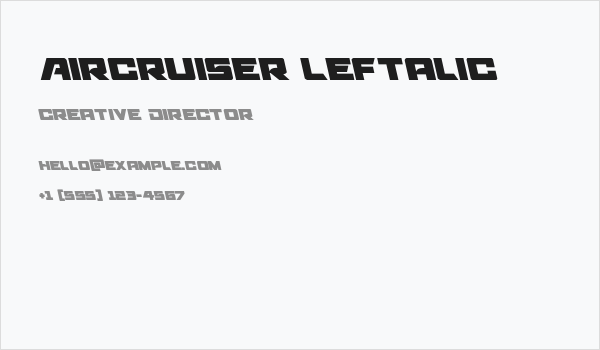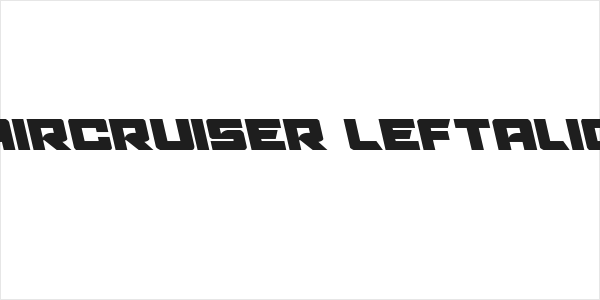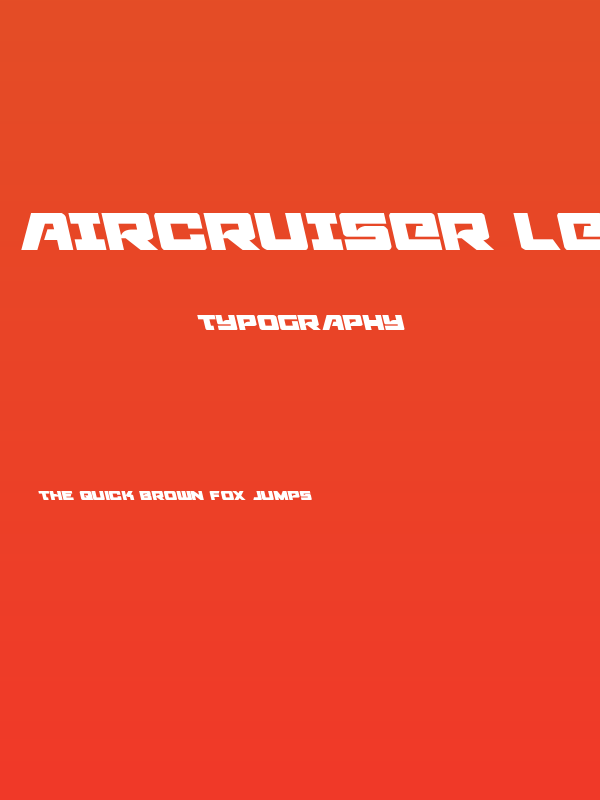
Aircruiser Leftalic Font
Aircruiser Leftalic Description
This font features a bold and angular design with a futuristic and dynamic appearance. The characters are heavily stylized with sharp edges and a slanted orientation, giving a sense of motion and speed. The uppercase and lowercase letters maintain a consistent geometric structure, while the numbers and special characters follow the same bold and angular theme. The overall design is striking and modern, making it suitable for projects that require a strong visual impact.
| Proposed Projects | Ideal for sci-fi themed designs, video game titles, sports branding, and technology-related projects. |